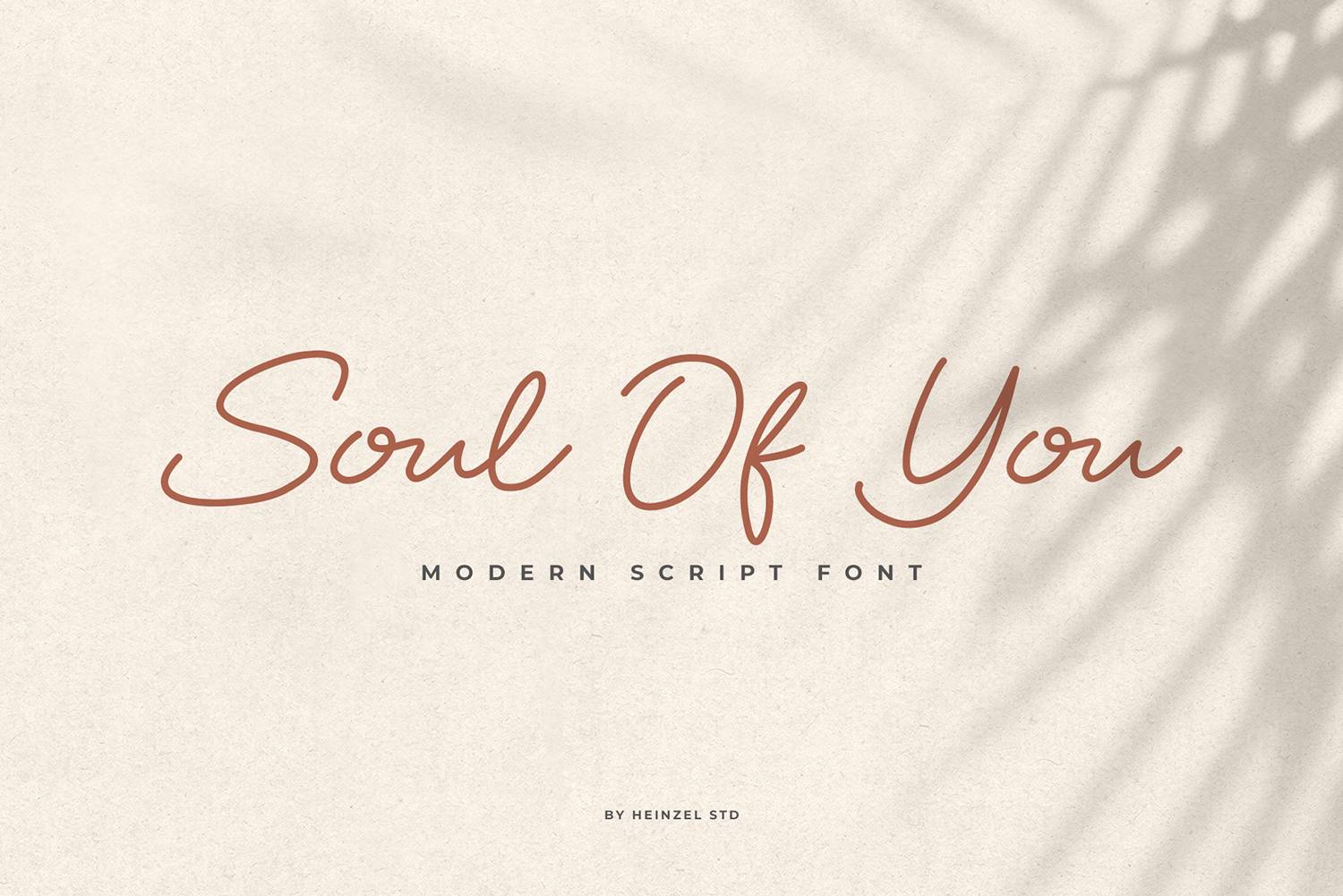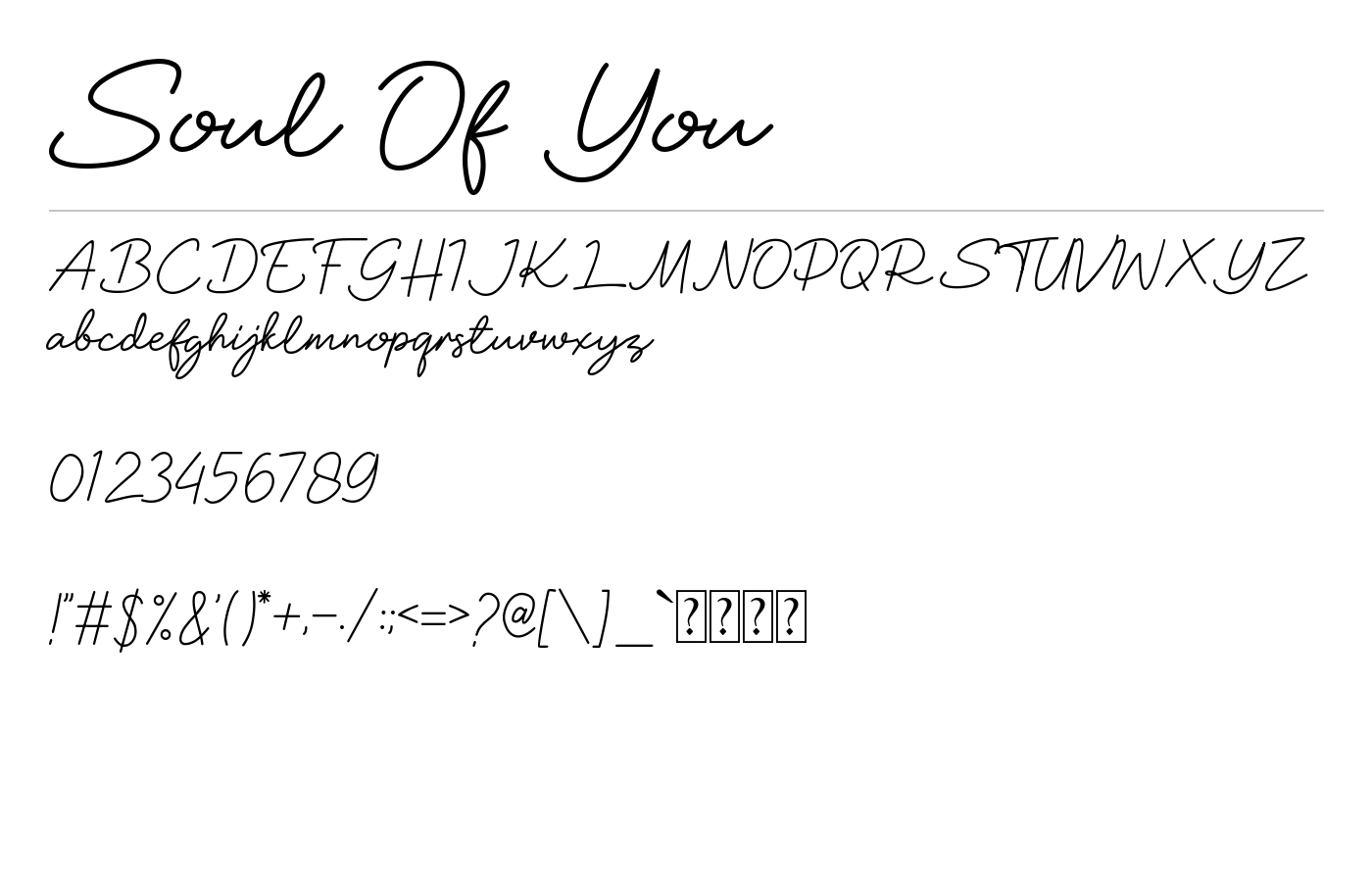
Soul Of You is a delicate, handwritten script font with a light, airy feel, featuring smooth, flowing strokes and slender letterforms that evoke elegance and warmth. Its natural, personal style makes it perfect for invitations, branding, and creative projects where a romantic or intimate touch is desired. This font works best in headlines or short texts where its charming personality can truly shine.
Soul Of You Font
About Soul Of You Font
| Font family | Soul Of You Font |